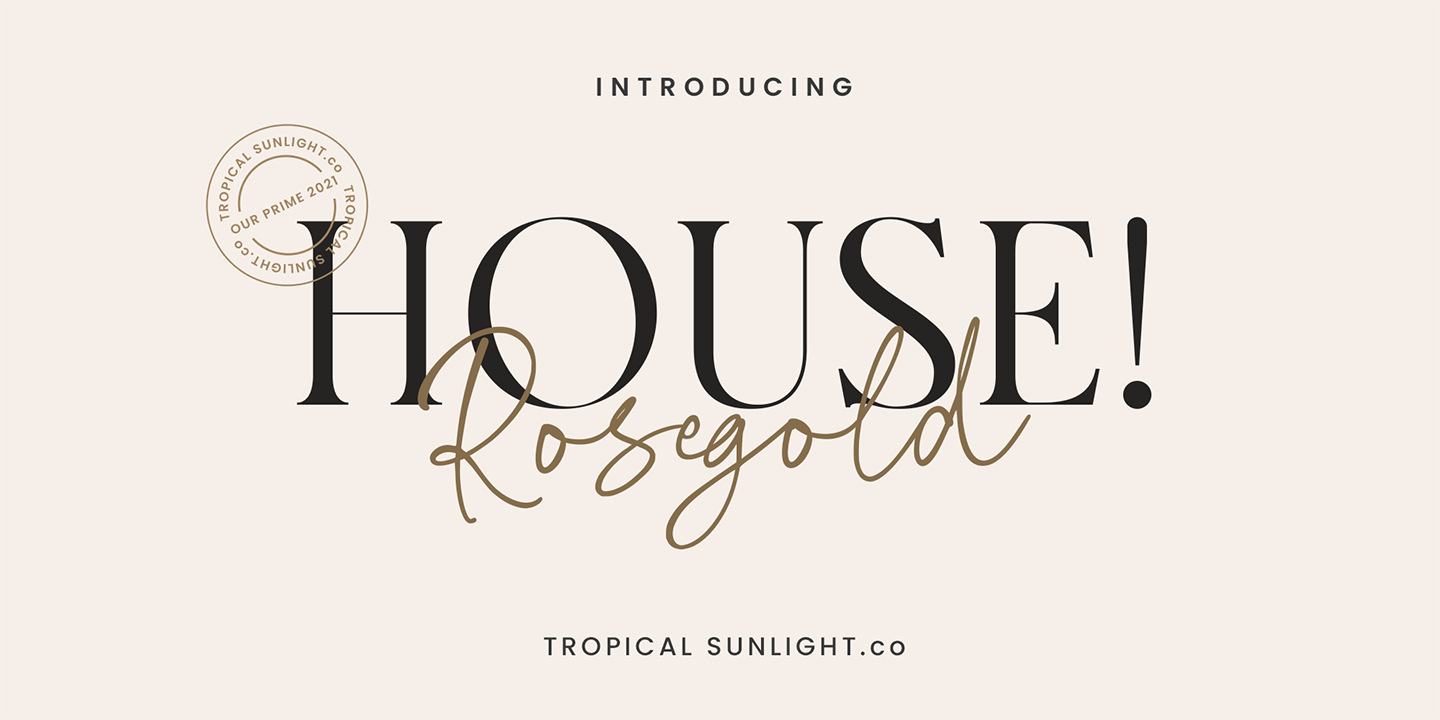
The Rosegold House Font is incredibly versatile, making it an exquisite choice for a wide array of design projects that aim to evoke a sense of luxurious elegance, feminine grace, and modern sophistication. Imagine it bringing a refined touch to high-end beauty branding, adding a chic and contemporary feel to wedding invitations, or gracing elegant social media templates for fashion influencers. It's also fantastic for crafting delicate product packaging for artisanal goods, unique greeting cards, and stylish editorial layouts that demand an air of refined charm. Its inherent beauty and polished appearance make it perfect for any project striving to communicate delicate allure, heartfelt messages, and an undeniable sense of upscale style.
What makes Rosegold House Font so exciting is its unique ability to blend the graceful flow of a script or the refined simplicity of a delicate serif with a distinct, often shimmering quality. It frequently features elegant ligatures, subtle swashes, or a clean, airy feel that gives it an immediate sense of luxury and bespoke craftsmanship. This font doesn't just display text; it adorns it, making your message feel precious, intimate, and truly special. Its balance of aesthetic appeal and functional clarity ensures that your designs are not only beautiful but also effectively convey their intended sentiment. It's a typeface that brings an atmosphere of romantic sophistication and modern glamour to your typography, guaranteeing your projects leave a breathtaking and memorable impression.
The Rosegold House Font family typically includes a range of weights and stylistic alternatives to provide extensive creative flexibility. While specific options can differ, you can generally expect to find alternatives like Regular, Bold, and potentially an Italic or a set of decorative alternates with elegant swashes and ligatures. These different weights and stylistic sets allow you to create dynamic visual hierarchies and add nuanced artistic flair to your typography, ensuring a cohesive and beautifully crafted design. This comprehensive family support ensures that whether you need a strong, elegant headline or a subtle, romantic accent, Rosegold House Font Free Download offers the perfect elements to bring your luxurious vision to life.